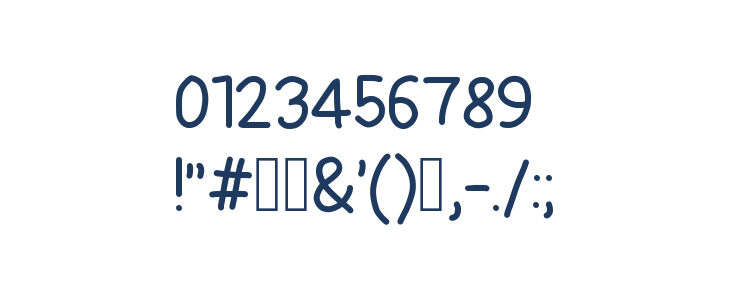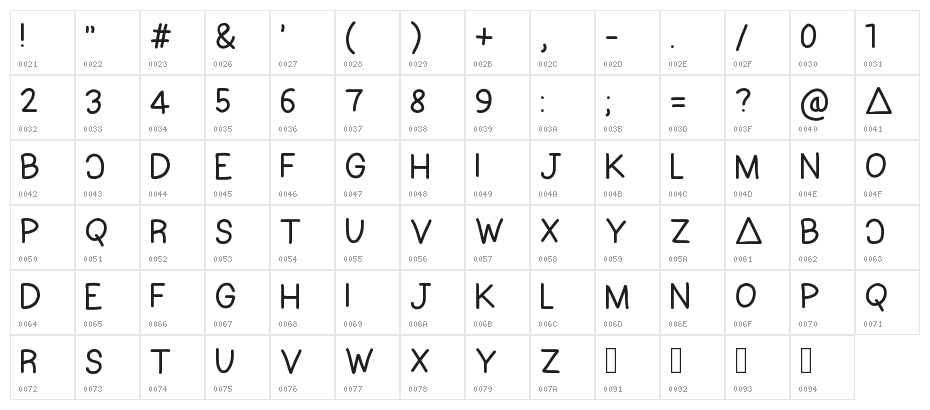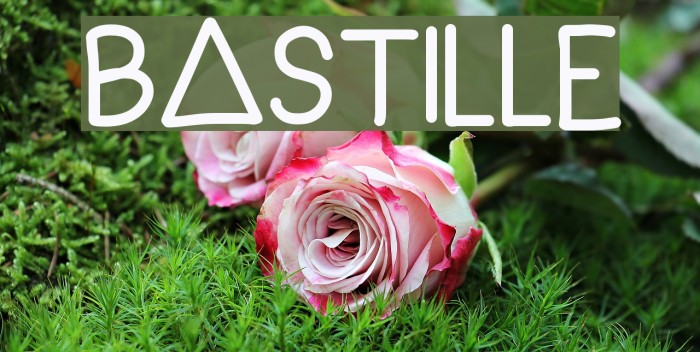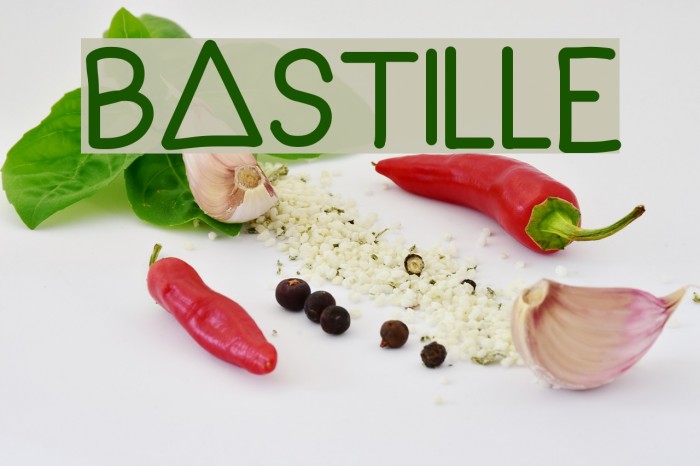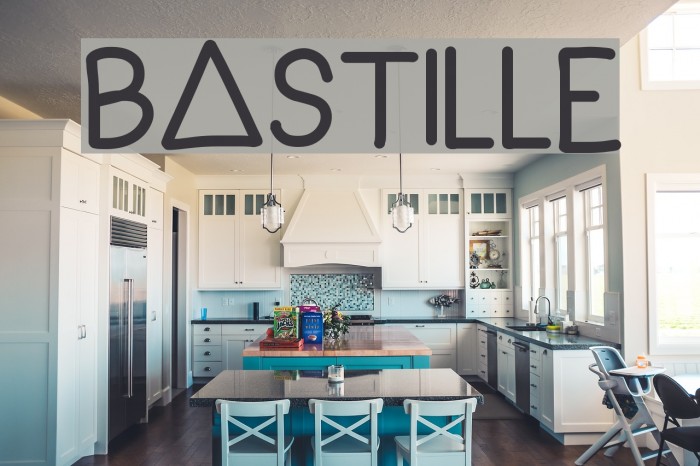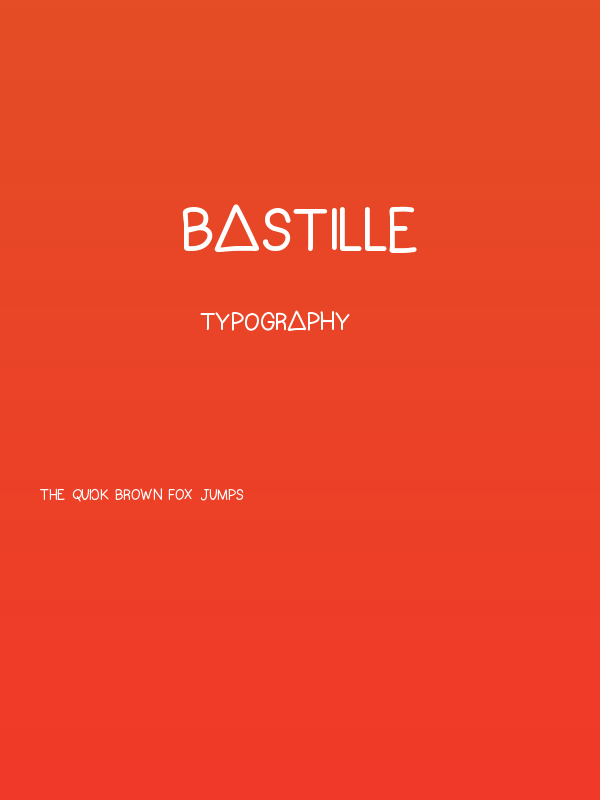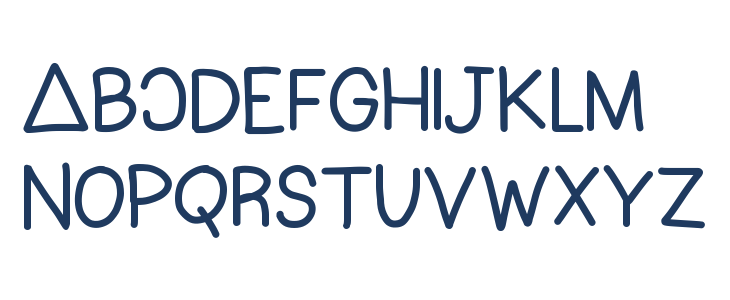
BASTILLE Font
BASTILLE Description
This font features a playful and rounded style, characterized by its bold and smooth curves. The letters have a consistent thickness, giving it a uniform appearance. The uppercase letters are slightly larger than the lowercase, with a whimsical touch that adds a sense of fun and creativity. The numbers and special characters maintain the same rounded aesthetic, ensuring cohesion across all elements. This font's design is approachable and friendly, making it suitable for projects that aim to convey warmth and accessibility.
| Proposed Projects | Ideal for children's books, playful branding, casual invitations, and creative posters. |